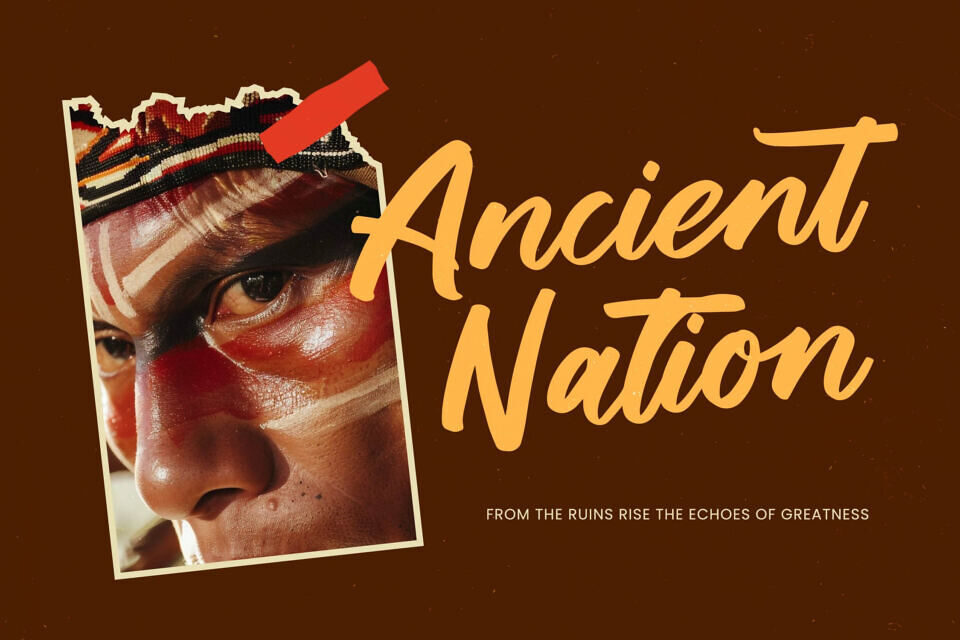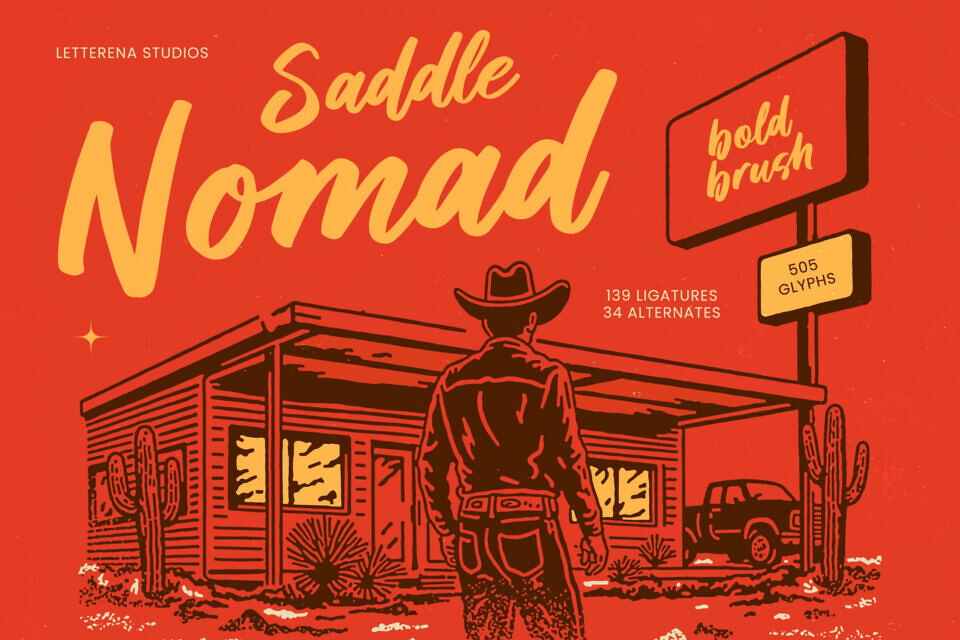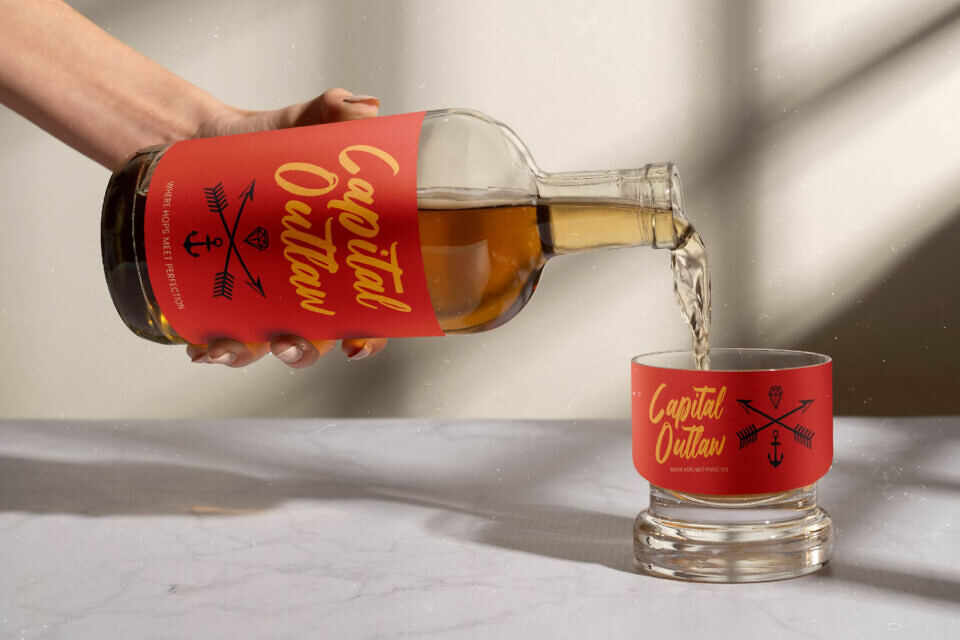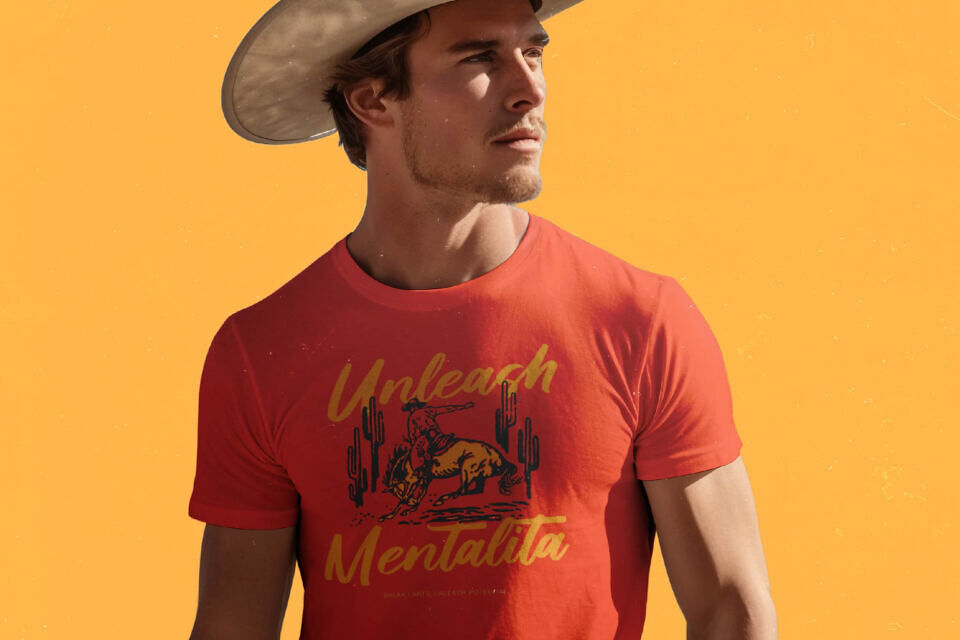
Saddle Nomad Font
Unleash the raw energy of the open road with Saddle Nomad, a powerhouse script designed to command attention. This expressive brush typeface captures a perfect balance between vintage Americana and modern hand-drawn artistry.
Its fluid, confident strokes and bold weight make it an ideal choice for creators seeking to infuse their projects with a sense of adventure and rugged sophistication.